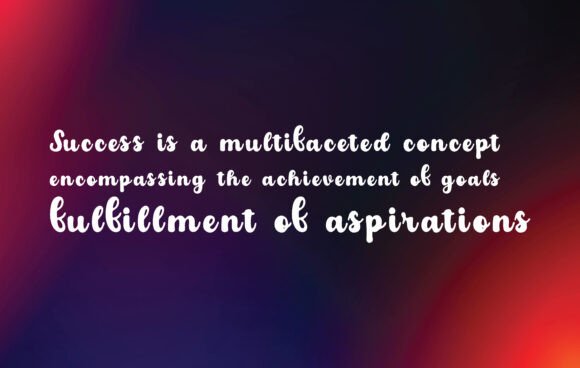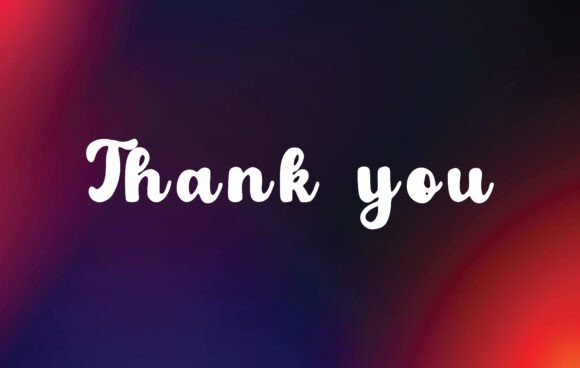
The Designer’s Delight: Axton Font
I still remember the frustration of working on a logo design project, hours spent searching for the perfect font, only to end up with something that just didn’t quite fit. The client was specific – they wanted a font that was not only beautiful but also eye-catching. That’s when I stumbled upon Axton Font, a lovely and beautiful handwritten font that has since become a staple in my design toolkit.
A Personal Review of Axton Font
As a designer, I’m always on the lookout for fonts that can help me create stunning visuals. Axton Font has been a game-changer for me, and here’s what I love about it:
- ✨ Beautiful handwritten script with a unique character
- ✅ Extensive character set, including OpenType features and glyphs
- ✅ Works perfectly for logos, branding, and quotes
Of course, no font is perfect, and Axton Font has a few quirks:
- 🤔 Some users may find the font a bit too ornate for certain projects
- ⚠️ Limited availability of stylistic alternates
The Story Behind Axton Font
Axton Font was designed with the intention of creating a beautiful, handwritten script that could be used for a variety of creative projects. The designer aimed to craft a font that was both elegant and legible, making it perfect for logos, branding, and quotes.
| Font Name | Axton Font |
| What is Axton Font? | Axton Font is a beautiful, handwritten font designed for creative projects. |
| Is Axton Font suitable for body text? | While Axton Font is legible, it’s best suited for headlines, logos, and short paragraphs. |
| Does Axton Font support OpenType features? | Yes, Axton Font includes OpenType features, such as ligatures and stylistic alternates. |